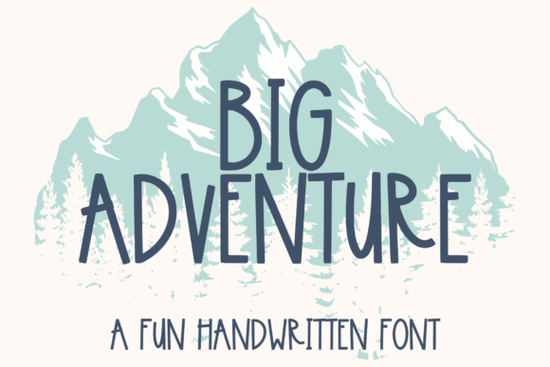
If you’re looking for a handwriting font that feels playful and personal, Big Adventure Font is one to consider. It lands somewhere between a casual note to a friend and a whimsical storybook letter, making it a solid pick for Cricut crafters who want designs with warmth. The characters have a slightly irregular bounce and soft curves, so nothing feels stiff or mechanical perfect when you need text that looks hand-drawn without actually sketching it yourself.
Does Big Adventure work seamlessly with Cricut machines?
Yes. Since it’s designed with Cricut users in mind, the font includes clean cut-ready outlines that translate smoothly into Design Space. You’ll get standard font files (usually OTF or TTF) plus SVG versions if you prefer working with vector layers. That means when you type out a name or a short phrase, the Cricut will recognize each letterform without extra cleanup, saving you time on node editing. I’ve found that fonts like this handle smaller sizes on cardstock really well, as long as you stick to a medium-weight material setting to keep the thin upstrokes intact.
What if I mainly use it for print-on-demand?
You can absolutely use it for mugs, tote bags, and t-shirts through Printful or similar platforms. Because the font has a hand-lettered feel, it avoids that generic “cookie-cutter” look that some script fonts get after repeated use. Keep in mind that for tiny prints (like small heat-transfer labels), you’ll want to test legibility at actual size. The same charm that makes it cute on a toddler’s birthday tee might get a little lost at 8pt on a sticker. For most POD sellers, though, the personality comes through loud and clear.
What kinds of projects feel natural with this font?
This is a font that thrives on projects where you want a light, friendly tone:
- Greeting cards: Birthday messages, thank-you notes, and baby shower invites get an instant lift.
- Scrapbook titles: Paired with simple sans-serif body text, it makes page headings pop without feeling formal.
- SVG designs for stickers: The uneven baseline and slightly rounded terminals give planner stickers a more handcrafted vibe.
- Nursery decor: Wooden name signs or canvas prints look gentle and imaginative perfect for a child’s room.
- Social media graphics: Use it for quote posts or highlight covers that need a soft, approachable energy.
If you’ve been exploring other script styles on Creative Fabrica, like the rustic farmhouse scripts, you’ll notice this one leans a little younger and more playful. It’s less refined and more spontaneous a nice contrast when you want something that doesn’t feel formal.
How does it compare to other Cricut script fonts?
Not every handwritten font handles cutting equally well. Some scripts have hairlines so thin the vinyl tears; others are so bold they lose the details. This playful Big Adventure style strikes a balance with consistent stroke contrast: enough thickness to weed easily, but not so chunky that it turns muddy on small text. Compare that to a delicate Wedding Signature Font, where extreme thin thins can cause headaches on a weeding mat. The Big Adventure letterforms hold up at sizes down to about half an inch without requiring you to manually thicken the lines.
Which fonts pair well with it?
Since this font is quite expressive, I usually pair it with something restrained. A clean all-caps sans or a light serif for body copy keeps the design from getting too busy. If you’re doing a seasonal project say, holiday gift tags you might swap in a more seasonal cousin like a cozy winter script for the colder months. When the project calls for a nostalgic children’s book feel, Vintage Children Font offers a different kind of whimsy, with more ornate curls. And for wedding suites where you need something formal and cursive, a signature-style script font often fits better than the playfulness of Big Adventure. The key is knowing the mood you’re after.
Can I use it for commercial work?
All Creative Fabrica fonts come with clear licenses, and most include unlimited commercial use as part of the subscription. Double-check the specific font listing, but generally you’re free to create physical products, digital downloads, and client design work without extra royalties. This matters a lot for small business owners: you can put Big Adventure on a product, sell it, and not worry about ongoing fees. If you run a shop selling custom tumblers or wooden signs, that’s peace of mind.
What should I watch out for before buying?
A couple of practical notes: Like many handwritten scripts, the font includes ligatures and alternates. Make sure your software (Cricut Design Space or Silhouette Studio) supports OpenType features, or you might miss those special letter combinations. Also, the bouncing baseline means lines of text won’t sit perfectly straight on a grid that’s intentional, but if you need perfectly even alignment, you may need to manually tweak positioning in your layout.
Is it worth adding to your font library?
If you regularly craft projects aimed at kids, families, or anyone who appreciates a dash of sweetness, this font earns its spot. It’s not a neutral workhorse for every occasion, but for the moments you need an “adorable handwritten” look, it delivers without forcing you to hand-letter. I’ve seen it used beautifully on Farmhouse Handwritten Font-inspired signs where the farmhouse style was too rustic, and this softened the whole piece. That alone makes it a handy tool for creative hobbyists who want options.